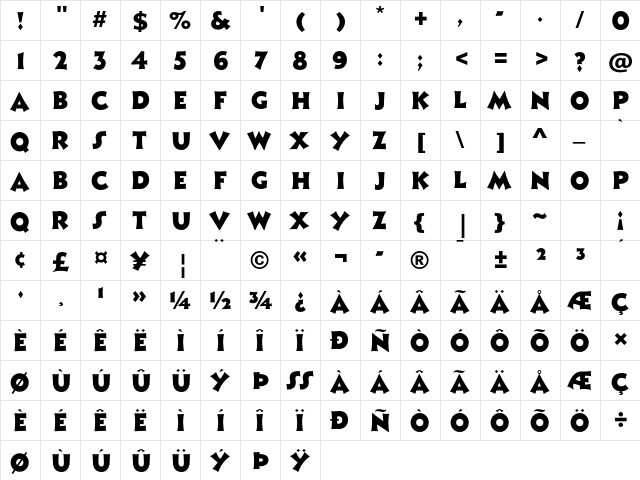
Ashley Crawford MT Std Regular
Design Context for Ashley Crawford MT Std Typeface
Ashley Crawford MT Std is a composed and adaptable typeface that performs quietly and consistently across a wide range of design contexts.